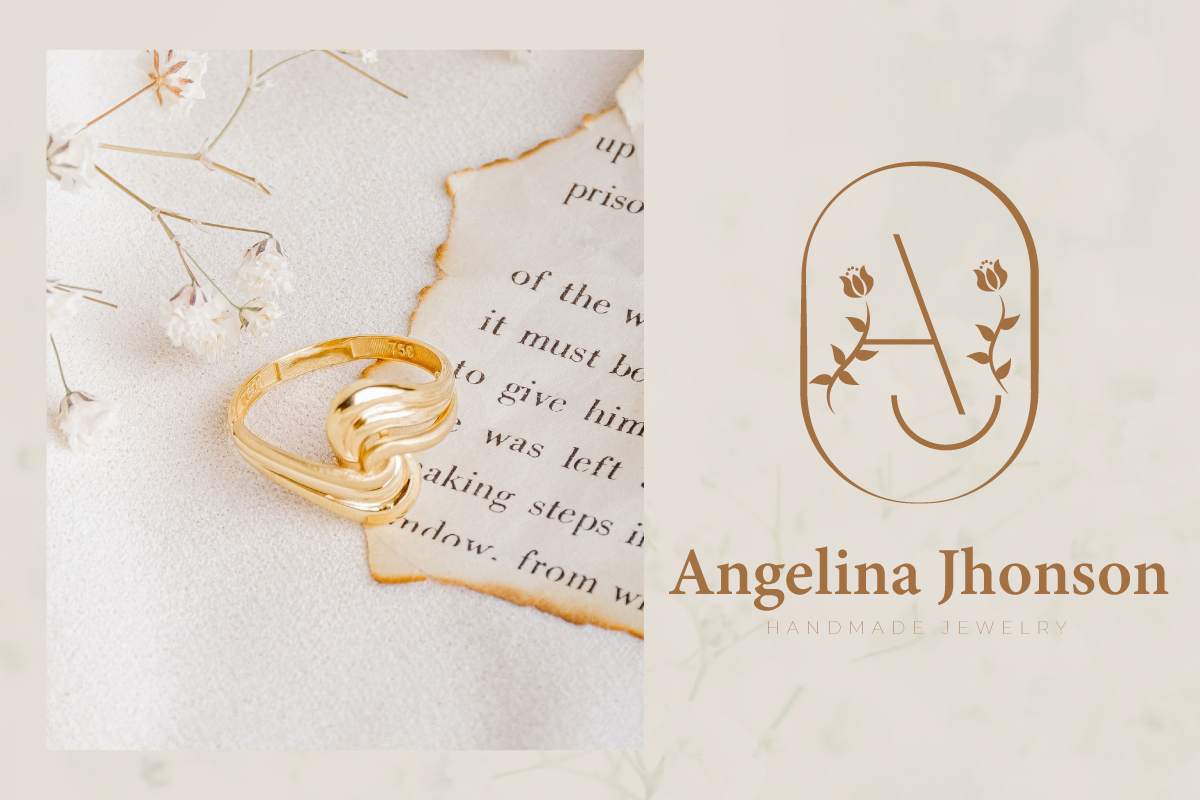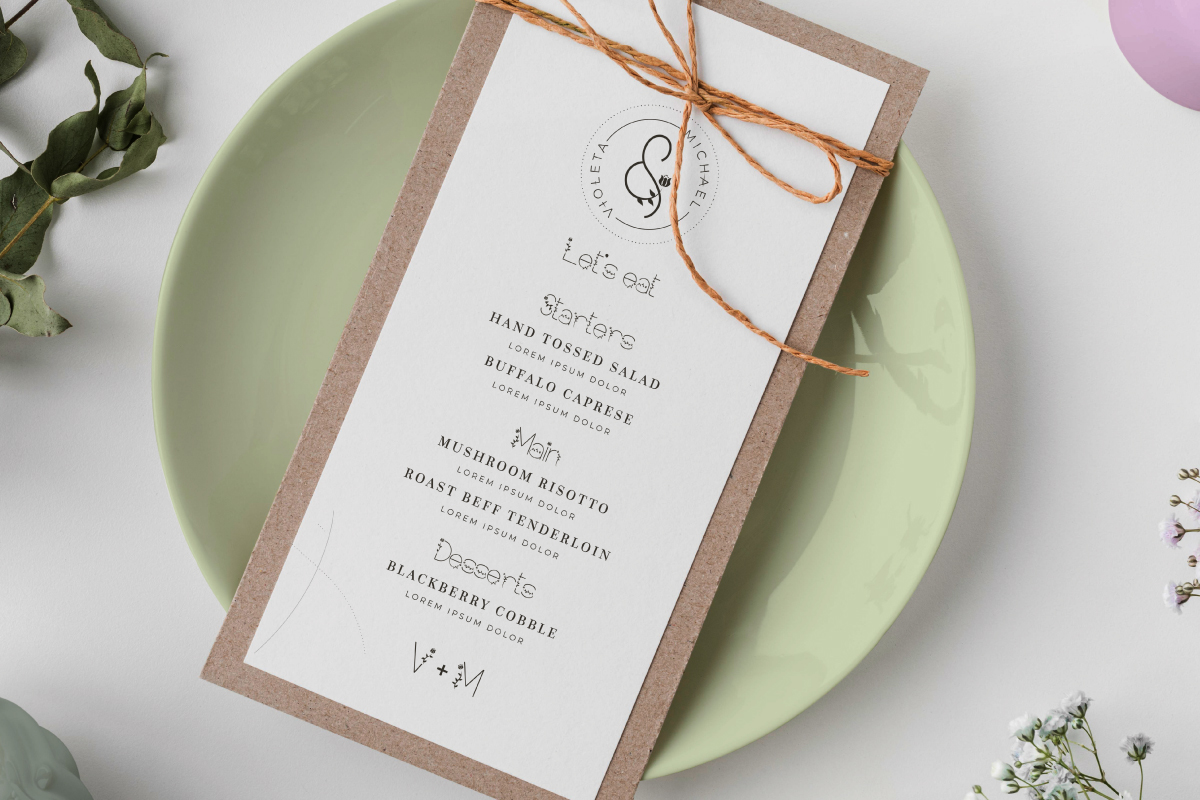
Flower Leaf Font
Flower Leaf Display Font
This is a decorative font display is inspired by the growing flowers and leafs. Bringing out the feminine side makes it perfect for wedding invitations, merchandise that requires a uniquely floral style.